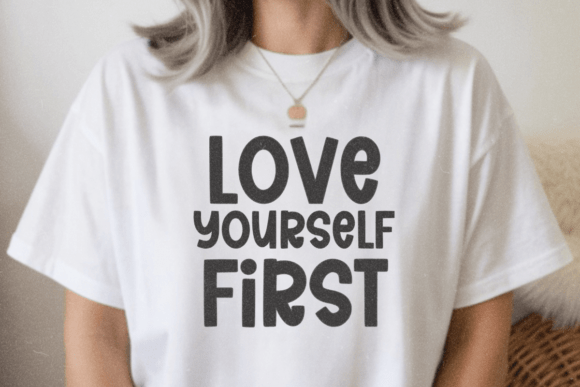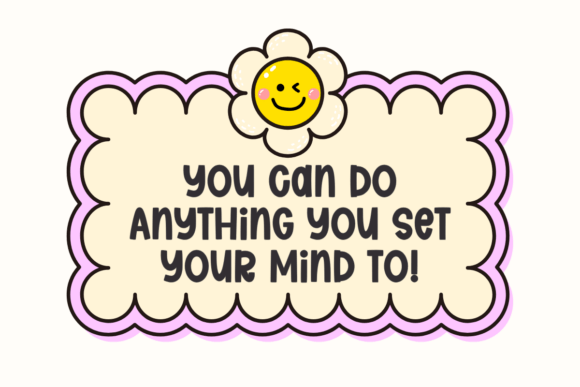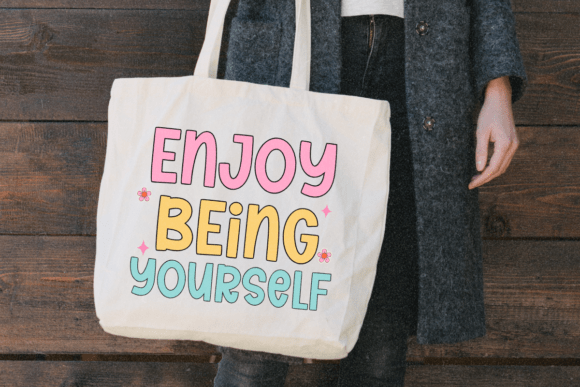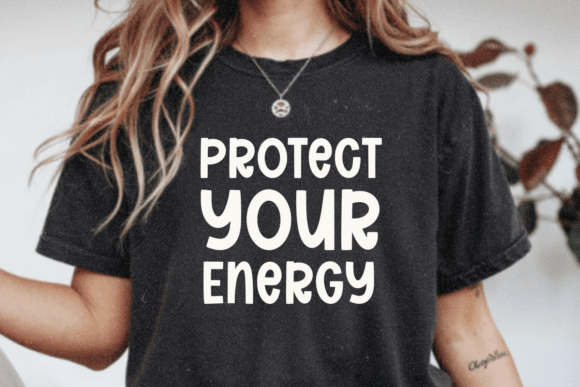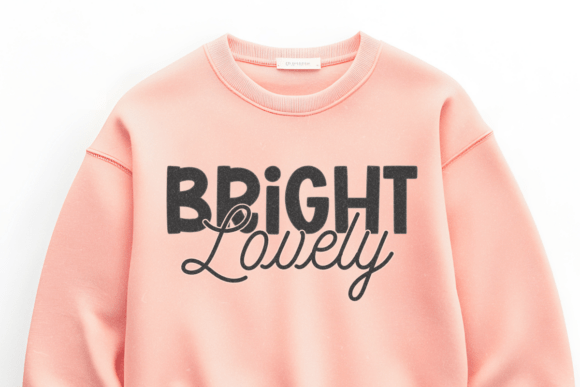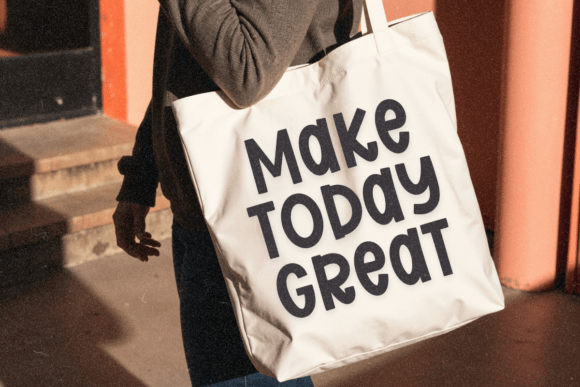
Introduction to Marie Chunky Font
Who hasn’t experienced that moment when a particular font sparks a wave of creative excitement? For many designers, it’s the perfect catalyst to bring a project to life. That’s exactly what happened when we discovered the Marie Chunky Font. Its bold, “bouncy,” and fun nature is the ultimate design resource for any creative project seeking a playful energy.
As a designer, you’re always on the lookout for high-quality fonts that can elevate your work. The Marie Chunky Font delivers, offering a unique blend of charm and legibility. With its soft, rounded edges and heavy visual weight, this typeface is sure to jump off the page and capture your audience’s attention. Whether you’re working on children’s product packaging, birthday party themes, or casual gaming interfaces, the Marie Chunky Font is a valuable asset to have in your design toolkit.
Key Features of Marie Chunky Font
- Unique, hand-drawn design perfect for creative projects and artistic expressions.
- High-quality font with transparent background, ideal for use on various design elements and backgrounds.
- Perfect for use in various design projects, including logos, typography, and creative graphics.
Honest Review: Marie Chunky Font
I recently had the chance to work with the Marie Chunky Font for a creative project, and I must say, it was a pleasant experience. The font is a high-quality design resource that can add a nice touch to any project.
- ✨ Beautiful, chunky style that’s perfect for headings or titles.
One of the standout features of the Marie Chunky Font is its transparent background, which makes it easy to use in a variety of design contexts. I also appreciated the clear and concise instructions that came with the font, making it easy to get started.
- Limitations:
- ⚠️ Limited character set, which may not be suitable for longer blocks of text.
- ⚠️ May not be as versatile as other fonts, but still a great choice for specific design projects.
Overall, I’m impressed with the Marie Chunky Font. It’s a solid addition to any designer’s toolkit, and I would recommend it to anyone looking for a unique and high-quality design resource.
Use this font in your designs to add a touch of elegance and sophistication.
Marie Chunky Font is commonly used in wedding invitations, branding materials, and other design projects that require a high-end and sophisticated look.
It’s also a great choice for designers looking for a unique and creative way to add texture and interest to their designs.